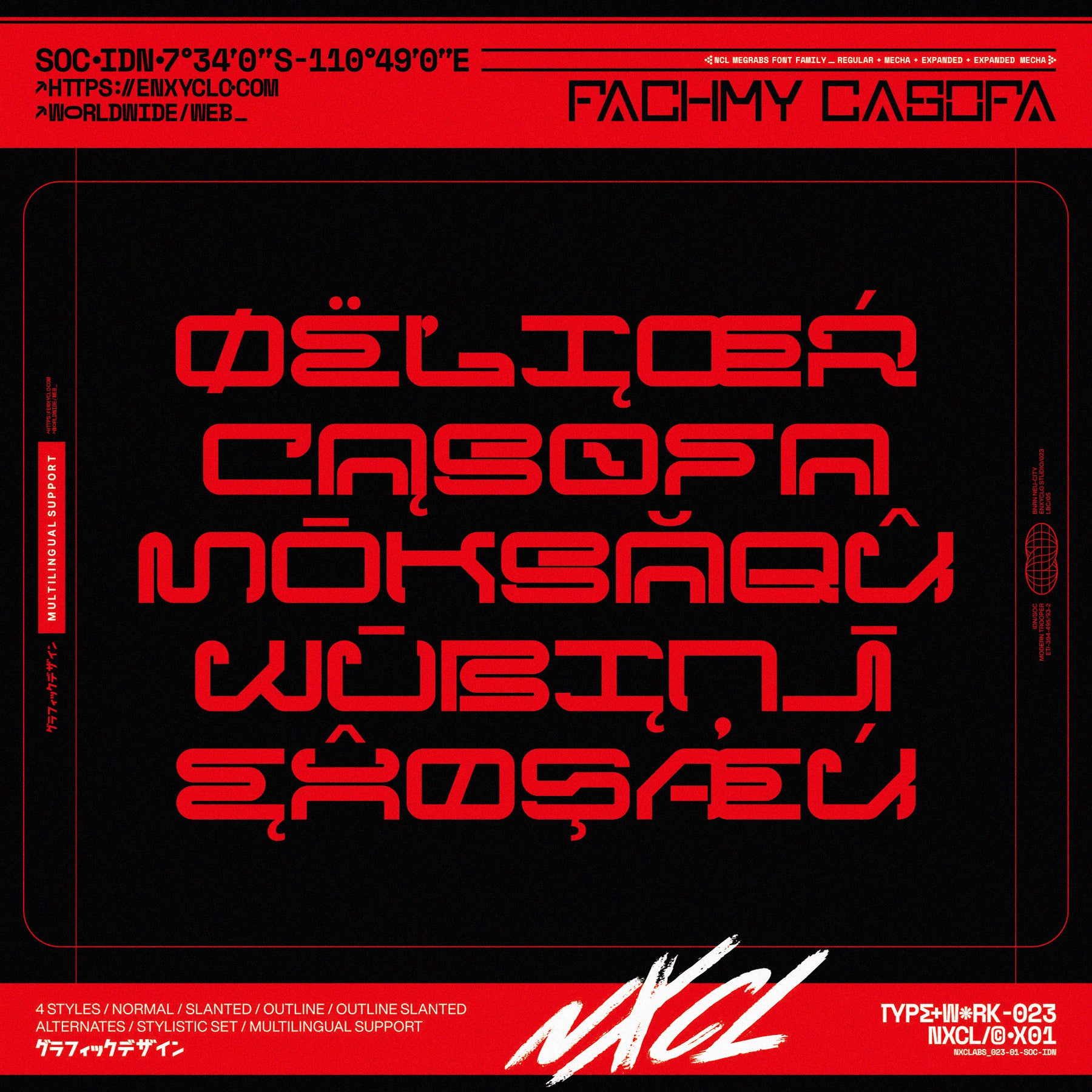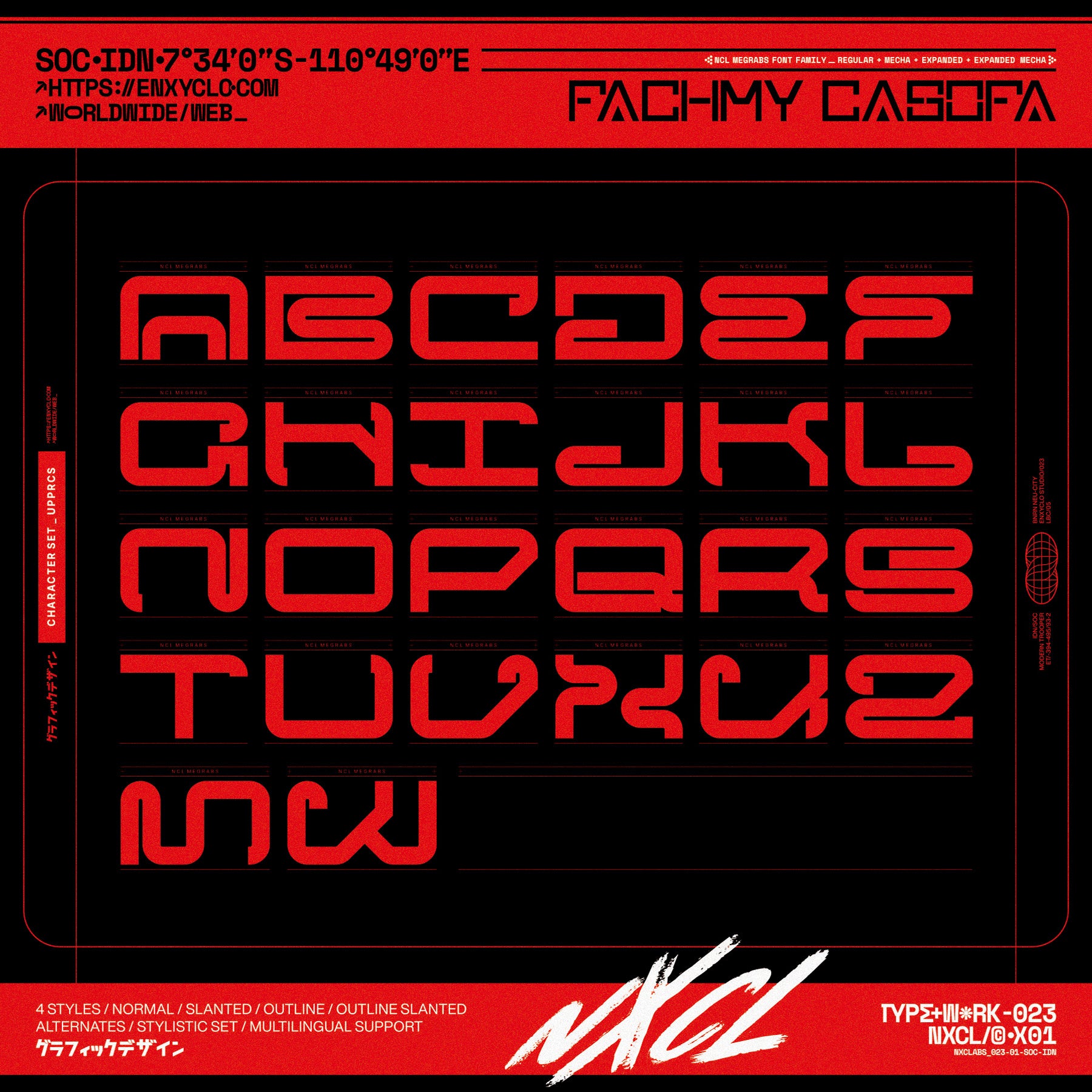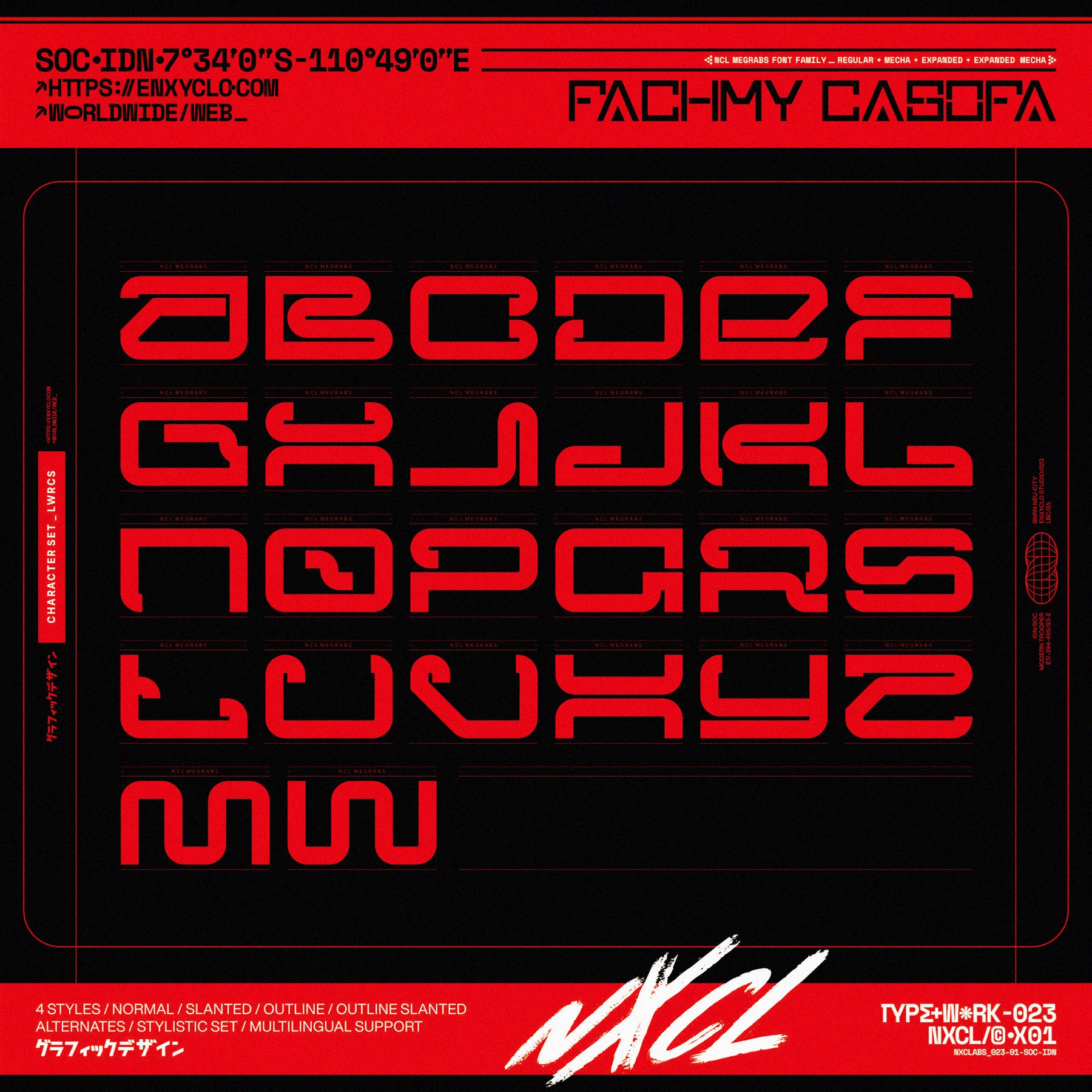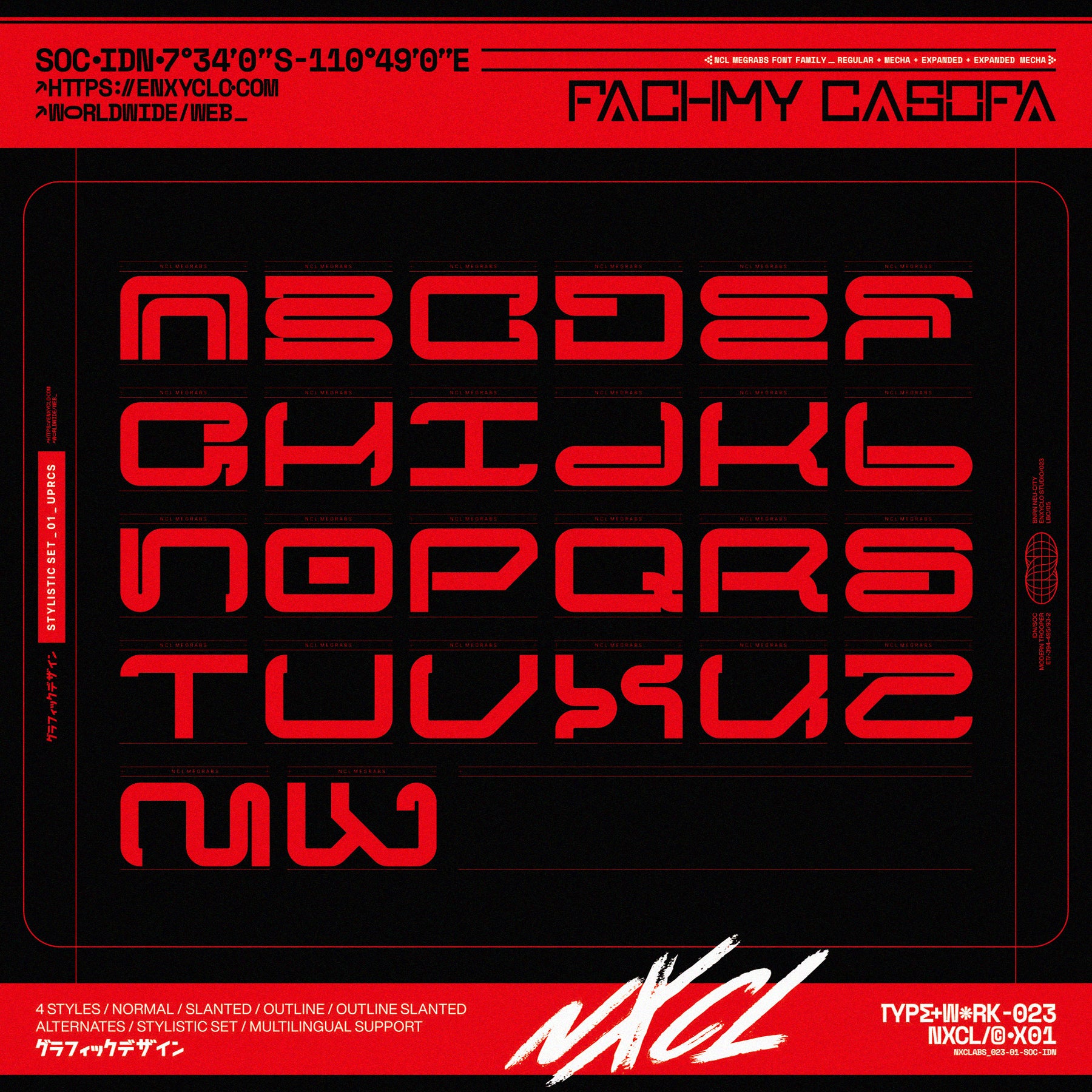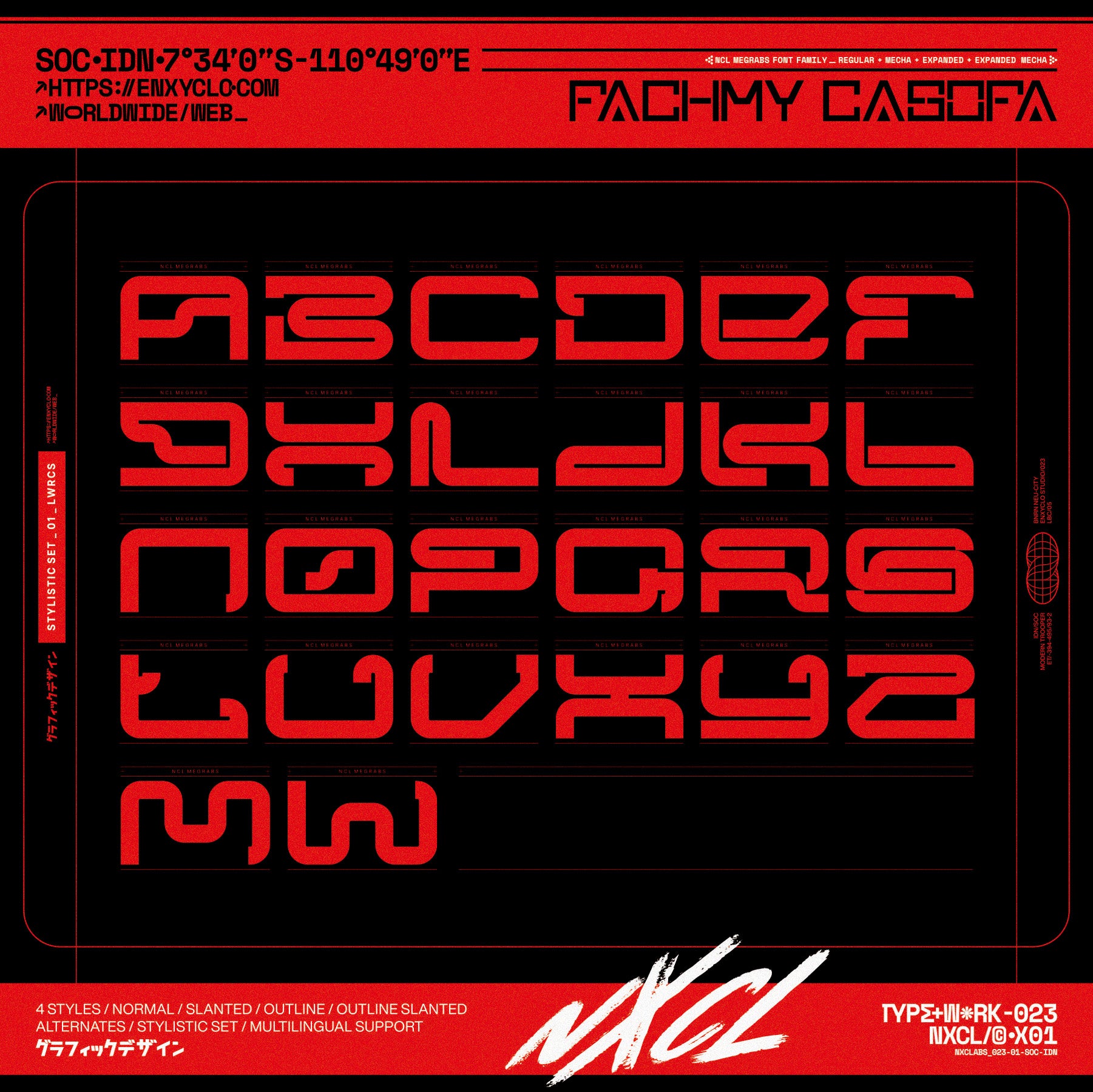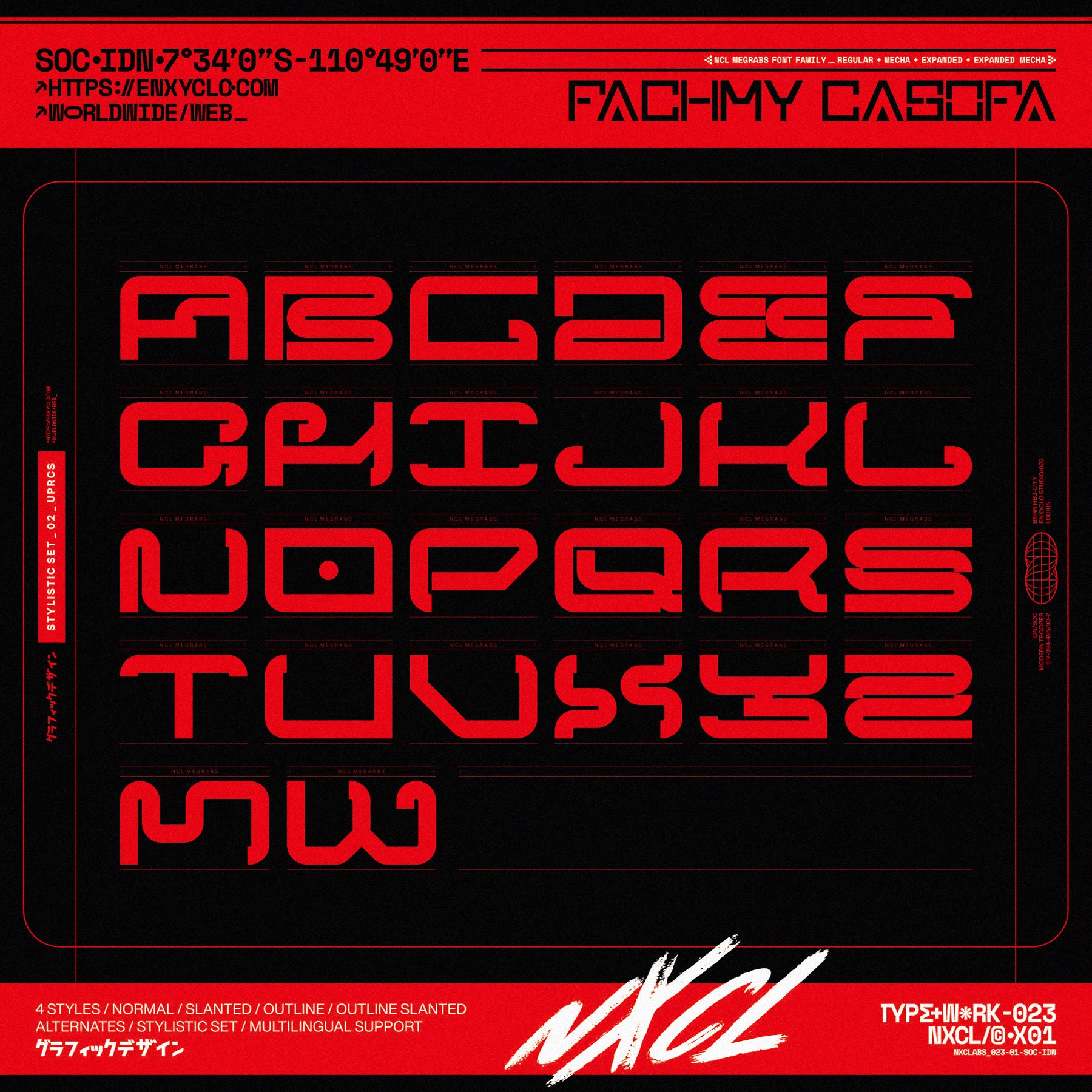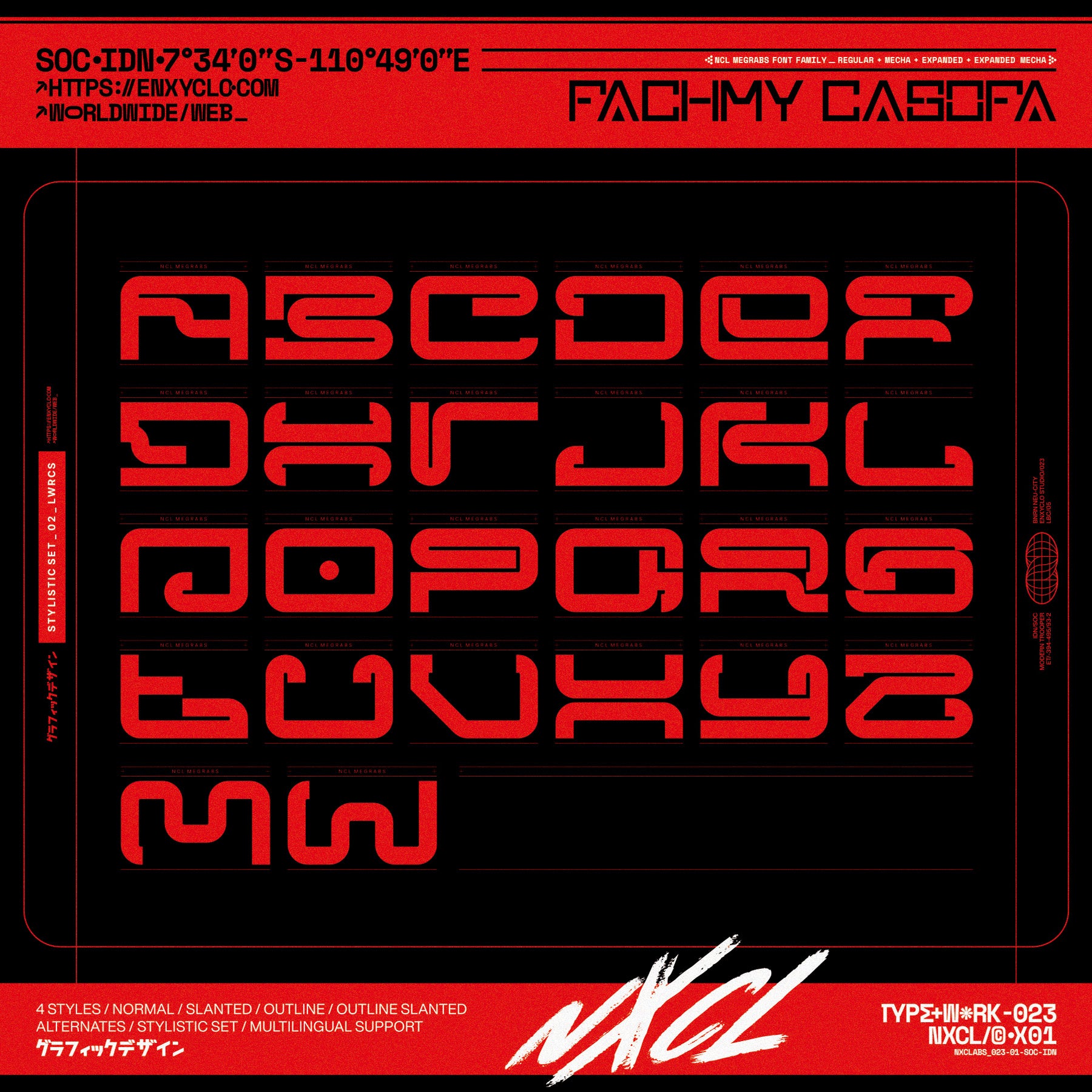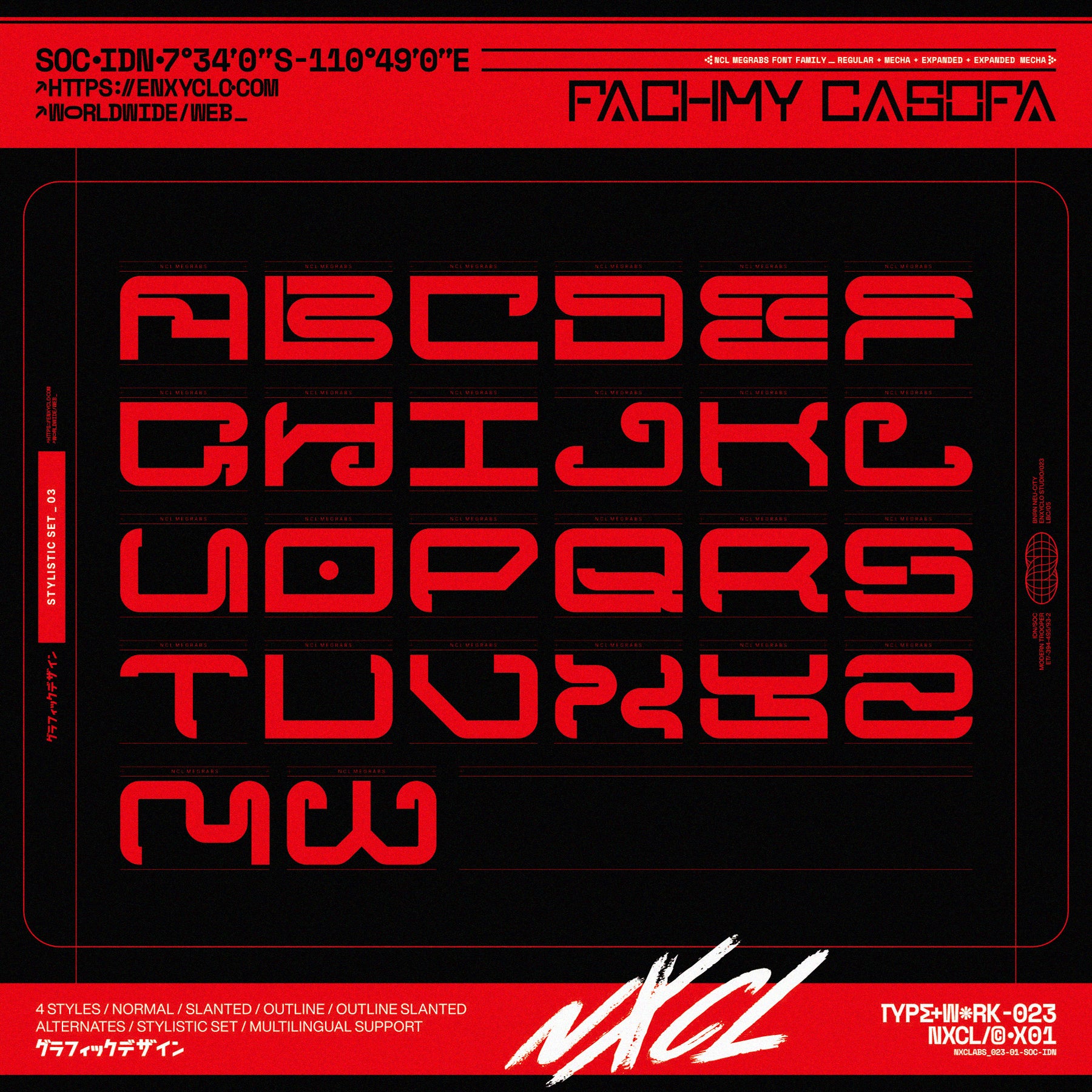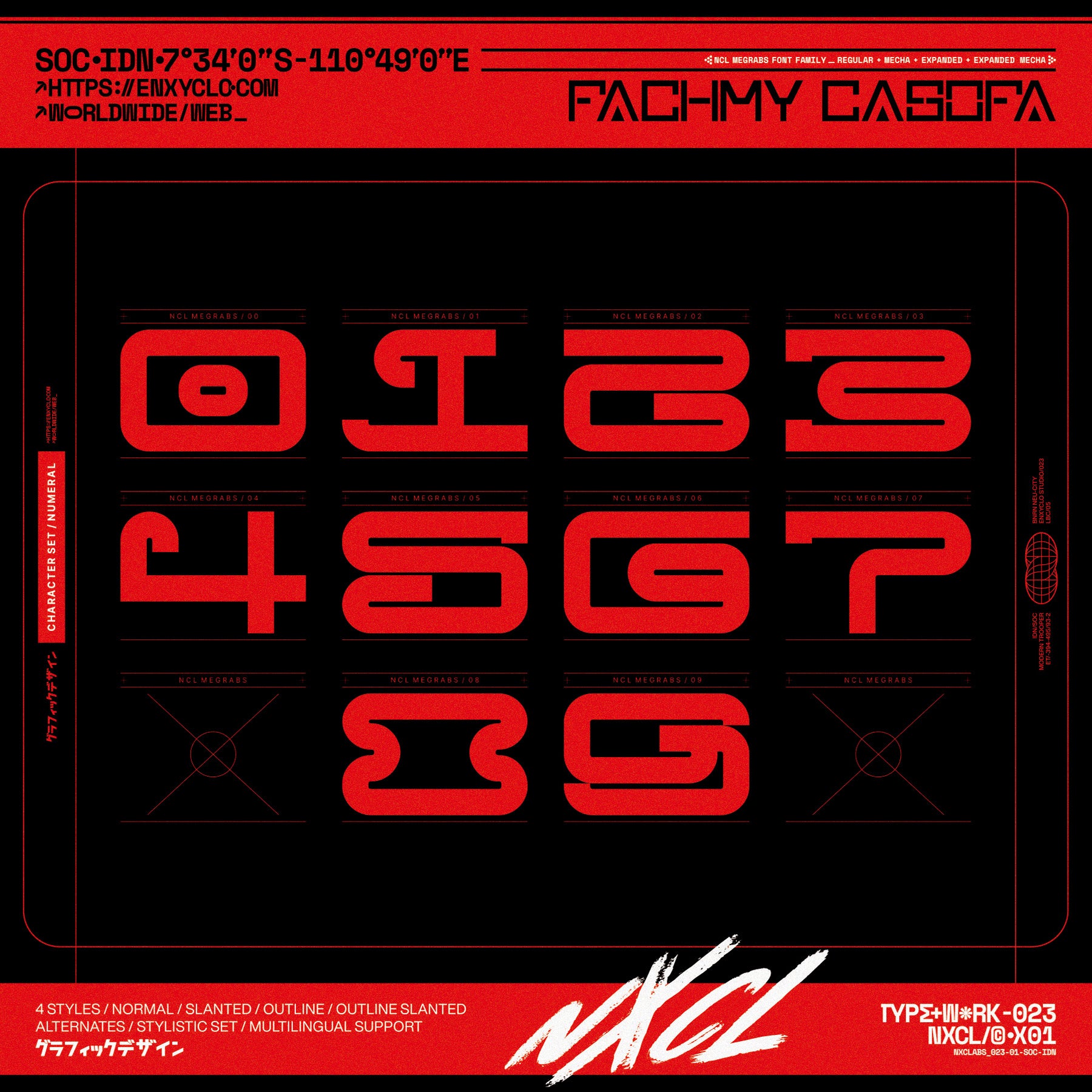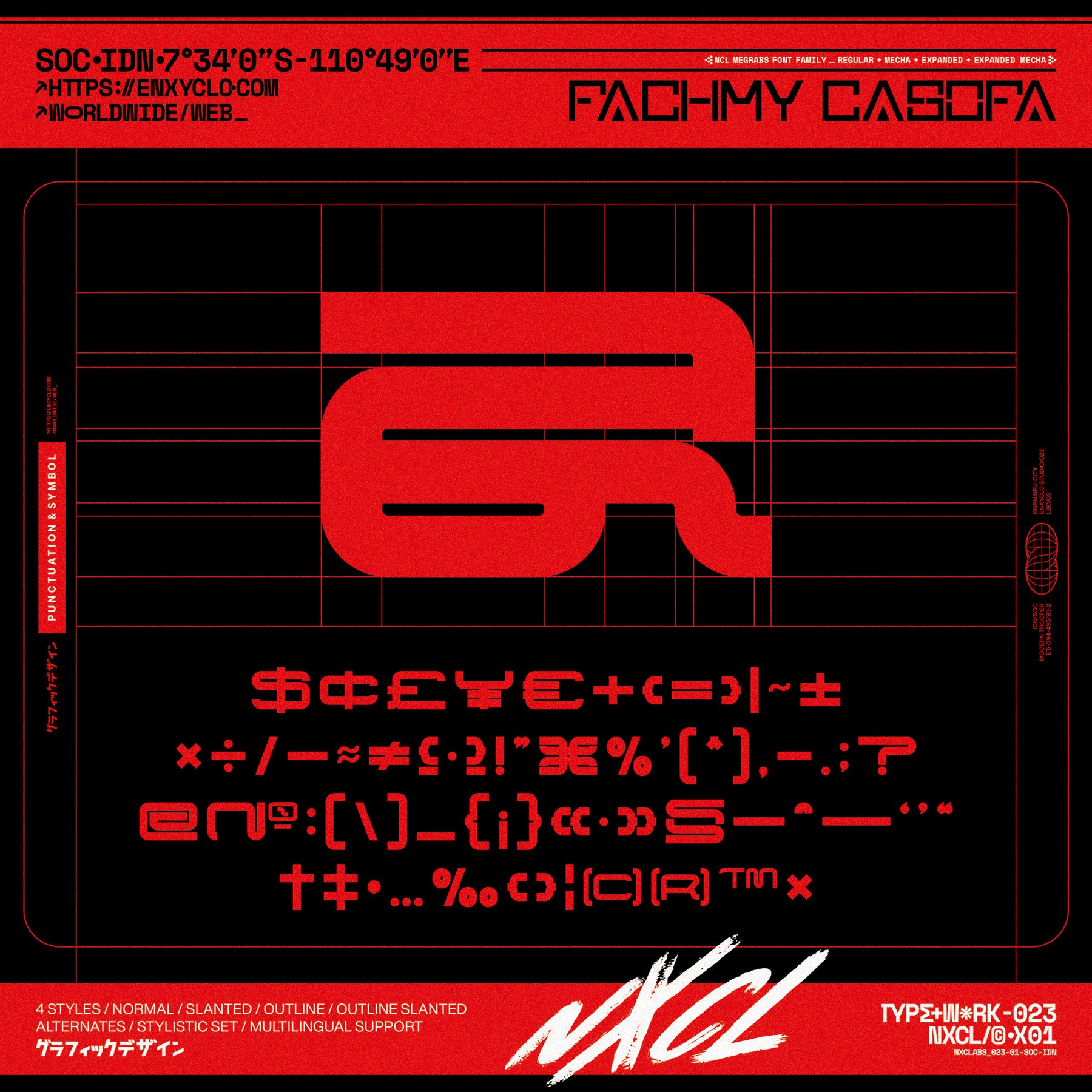
NCL MEGRABS • Industrial Futuristic Typeface
NCL MEGRABS font family is not your ordinary font. It’s an industrial brutalism futuristic modern techno font that takes your creativity to the next level. Its modern aesthetics bring a whole new dimension to your designs, making them stand out. Whether you’re working on a website, poster, logo, or any other project, this font adds that extra touch of innovation and sophistication.
FONT FAMILY
- NCL Megrabs Regular
- NCL Megrabs Normal
- NCL Megrabs Slanted
- NCL Megrabs Outline
- NCL Megrabs Outline Slanted
- NCL Megrabs Mecha
- NCL Megrabs Mecha Normal
- NCL Megrabs Mecha Slanted
- NCL Megrabs Mecha Outline
- NCL Megrabs Mecha Outline Slanted
- NCL Megrabs Expanded
- NCL Megrabs Expanded Normal
- NCL Megrabs Expanded Slanted
- NCL Megrabs Expanded Outline
- NCL Megrabs Expanded Outline Slanted
- NCL Megrabs Expanded Mecha
- NCL Megrabs Expanded Mecha Normal
- NCL Megrabs Expanded Mecha Slanted
- NCL Megrabs Expanded Mecha Outline
- NCL Megrabs Expanded Mecha Outline Slanted
FEATURES
- 468 Glyphs for Each Style in Regular
- 468 Glyphs for Each Style in Mecha
- 468 Glyphs for Each Style in Expanded
- 468 Glyphs for Each Style in Expanded Mecha
- 7488 Total Glyphs (for Regular, Mecha, Expanded, and Expanded Mecha)
- Stylistic Set 1-3
- Uppercase & Lowercase
- Numeral, Punctuation & Symbols
- Multilingual Support